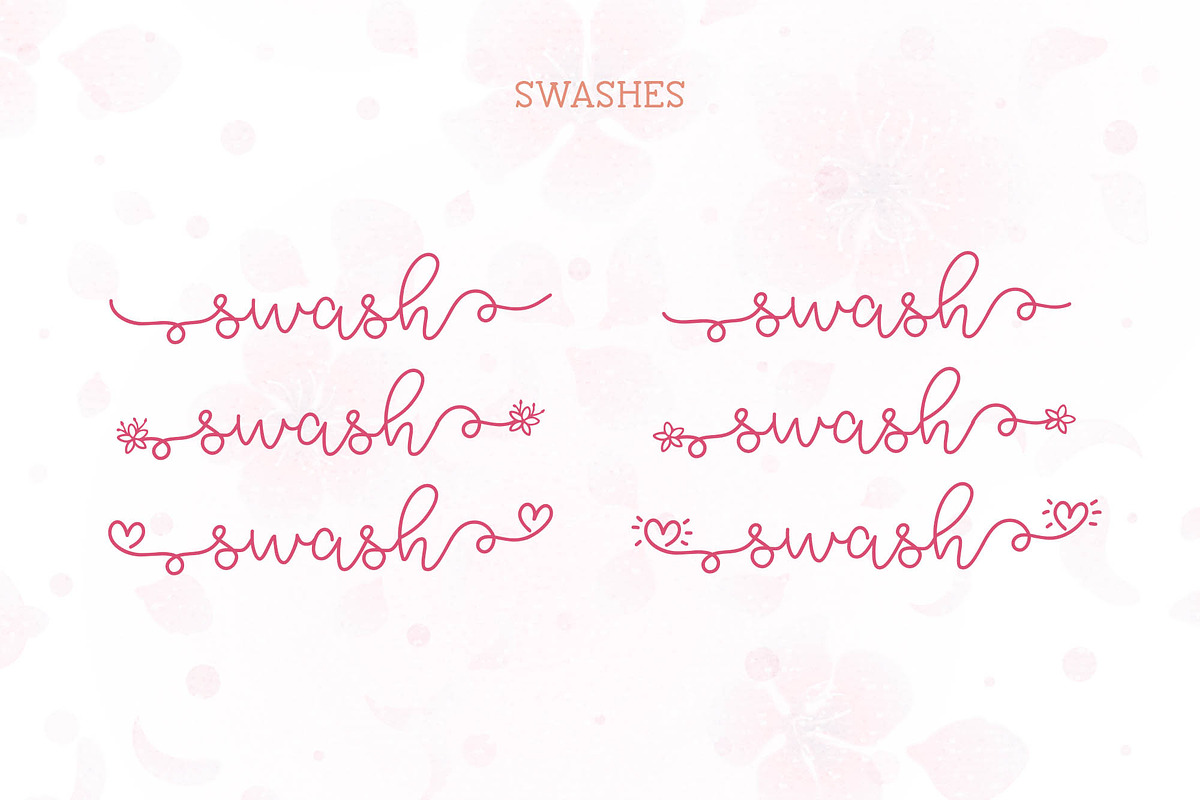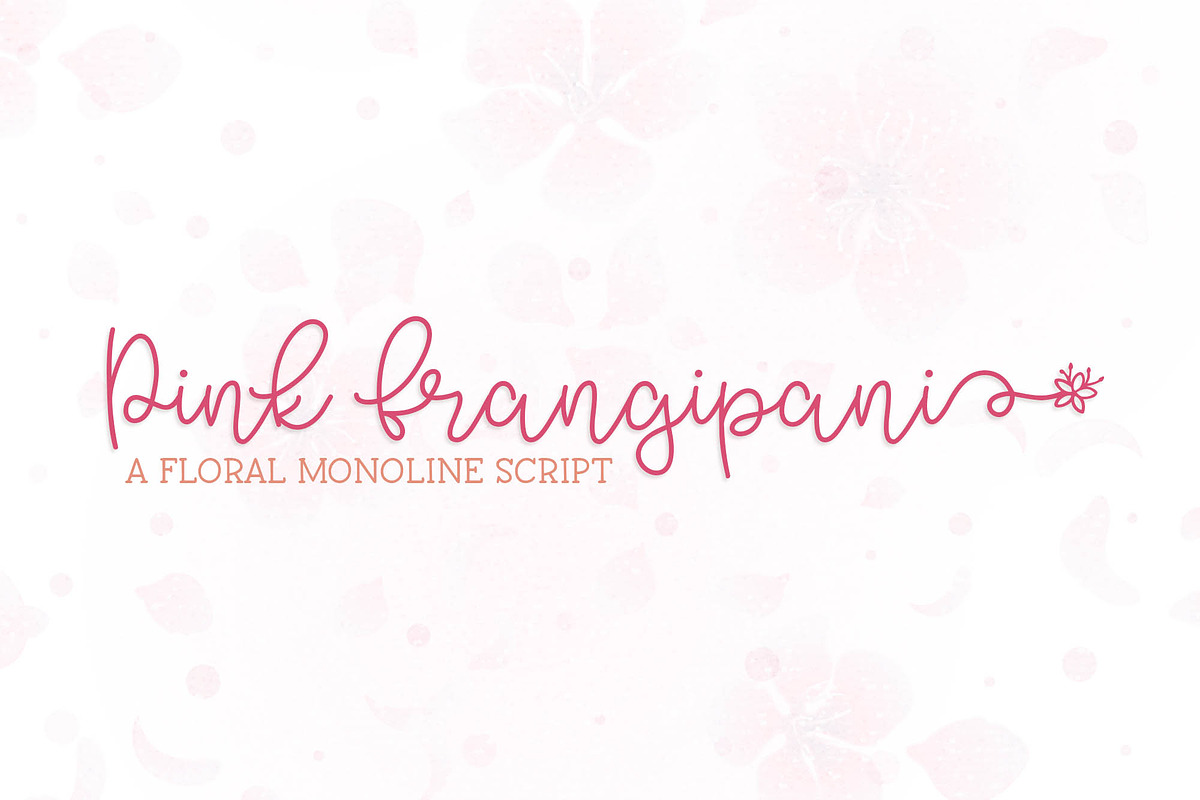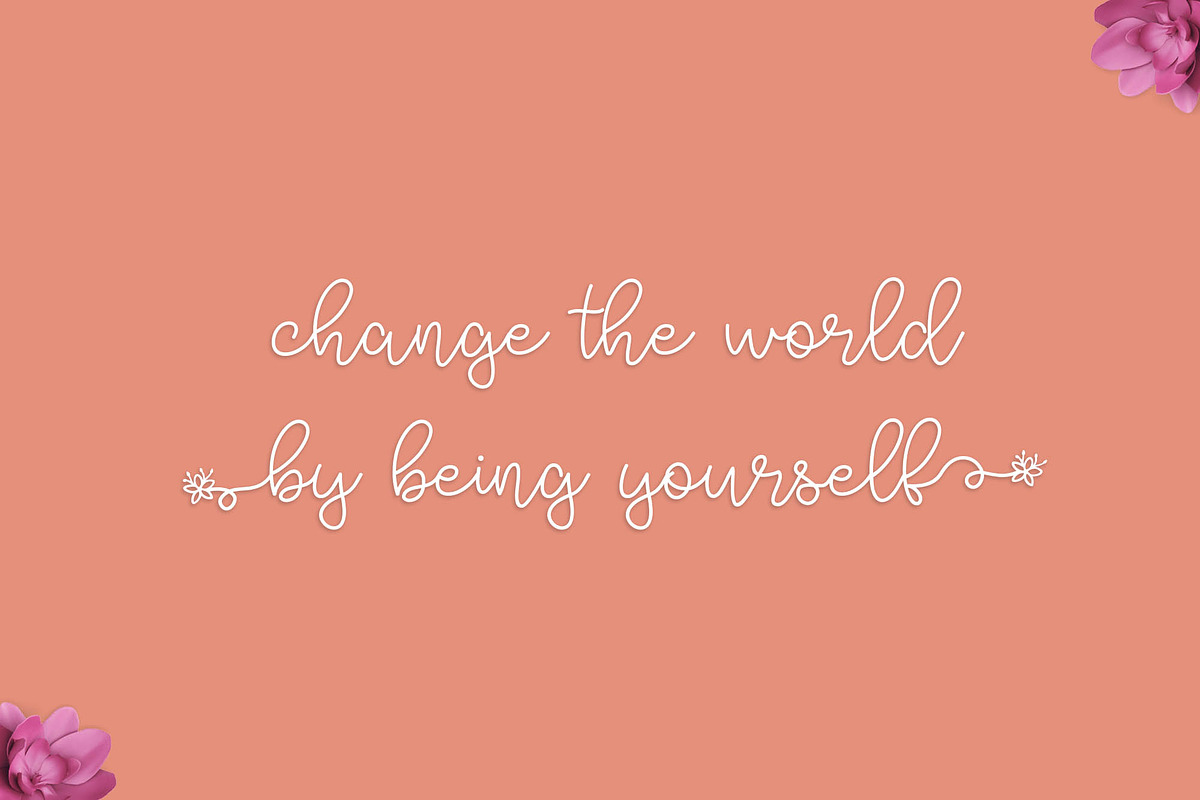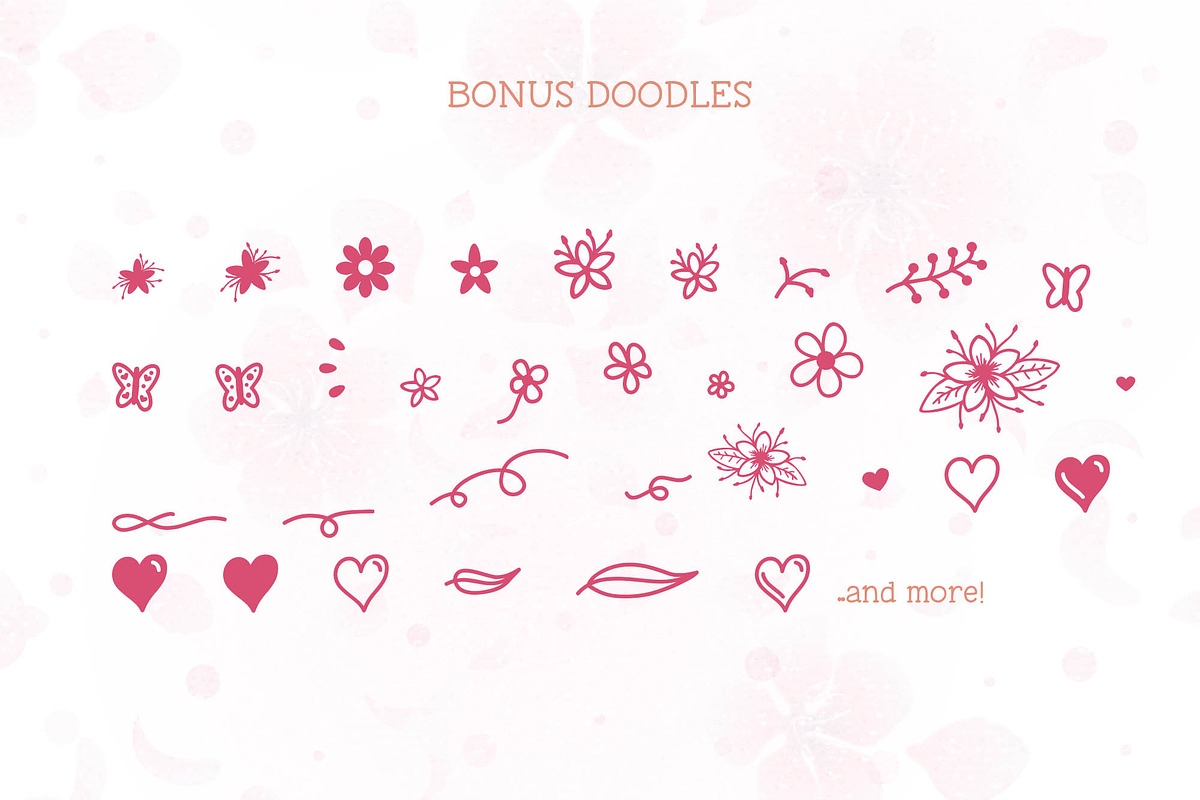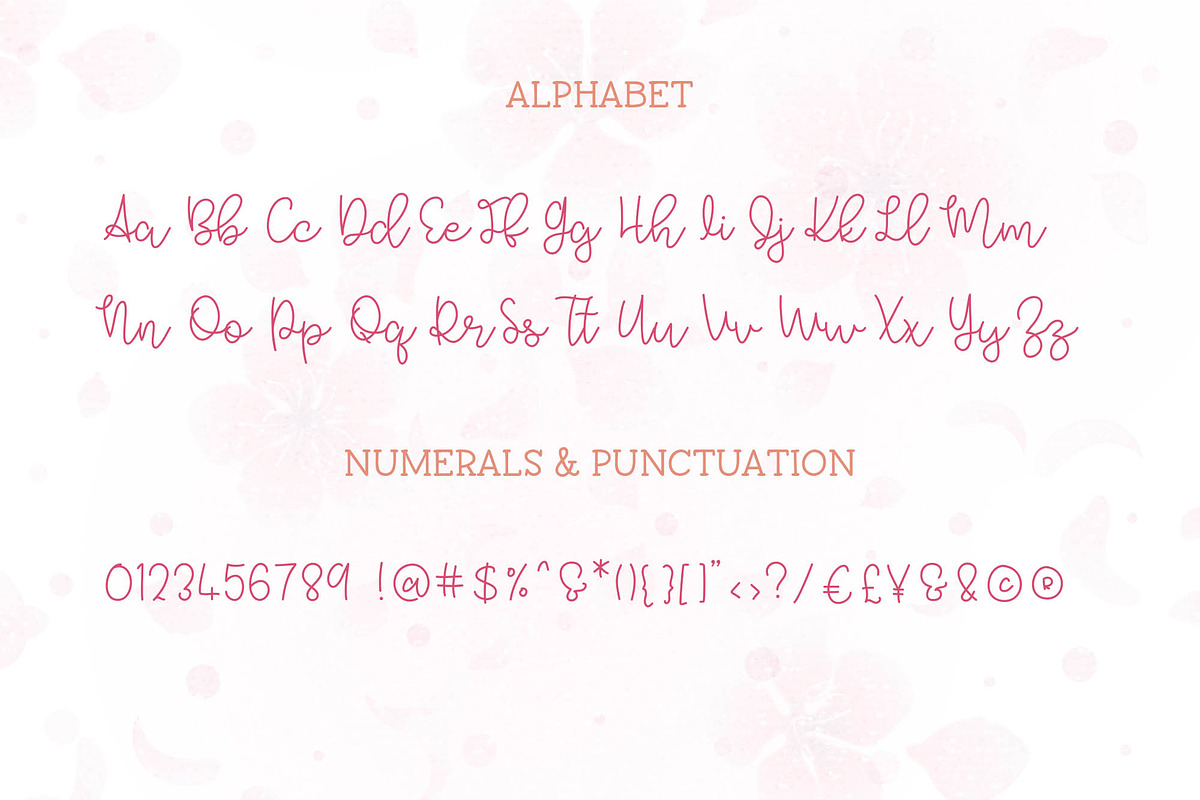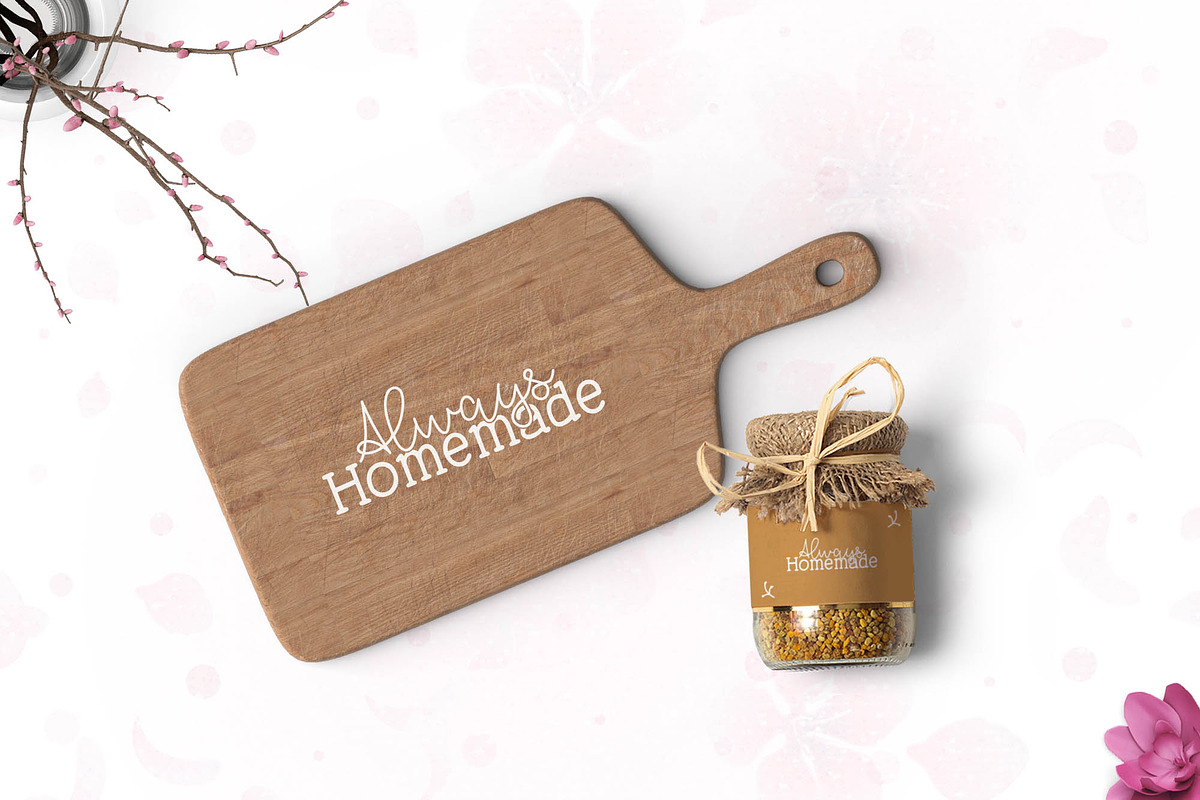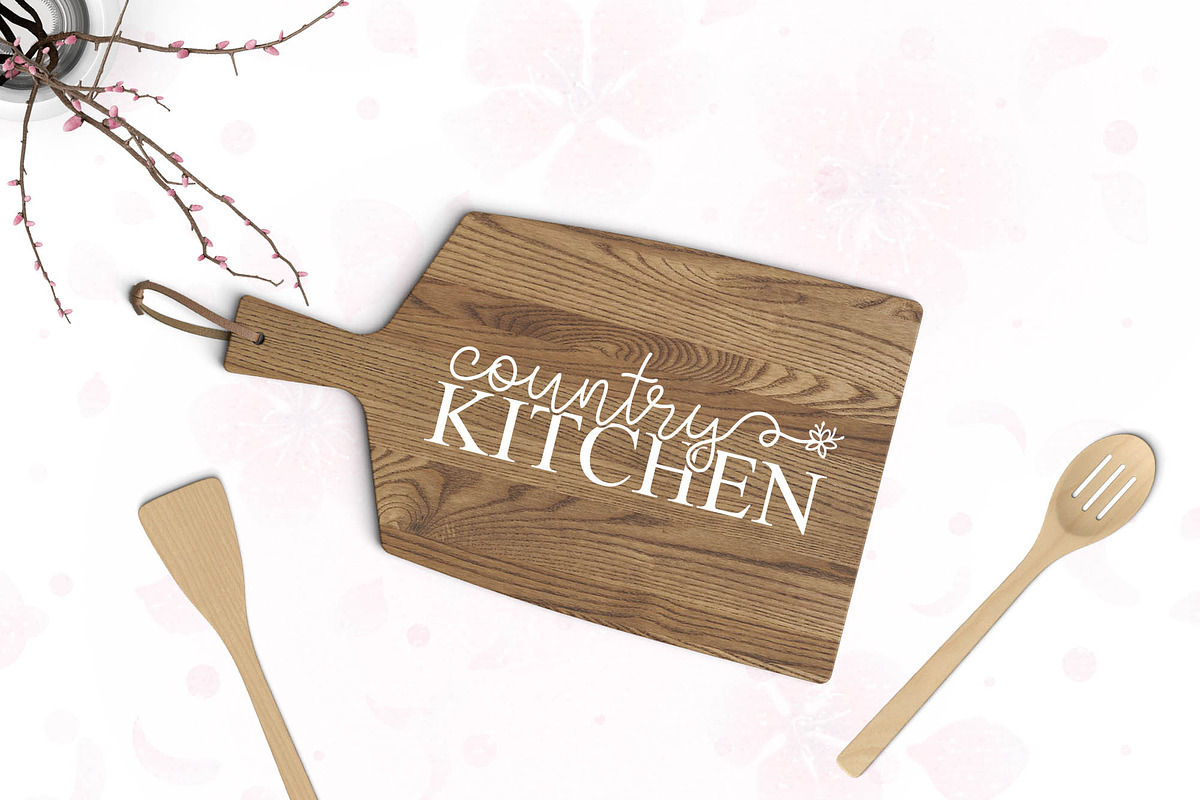
Pink Frangipani
Introducing Pink Frangipani, a bouncy monoline script with alternate glyphs, a variety of swashes, and bonus doodles!
Add swashes to any letter using the bracket keys, with additional swash options using the glyphs panel. Alternatively, the font is PUA encoded - alternate swashes can be accessed using Character Map/Font Book.